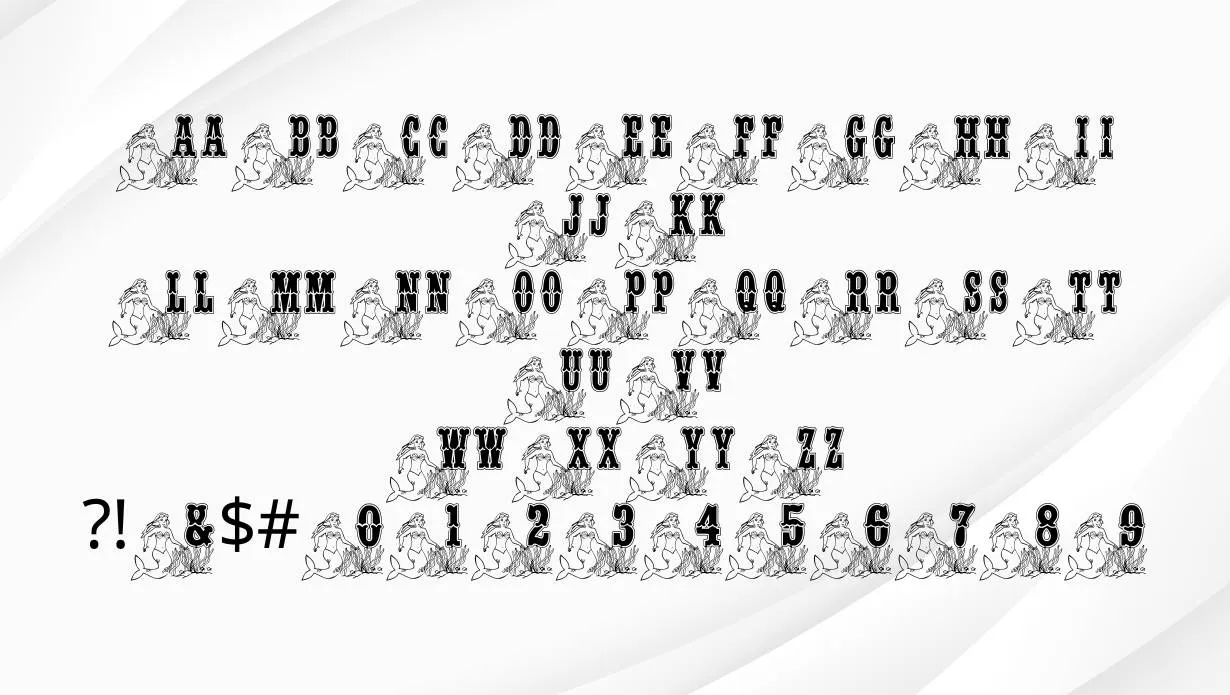
BJF Mermaid font is an artsy and whimsical typeface used in Adobe CSS for creative and imaginative designs, making it a favorite for children’s books, fantasy-themed illustrations, and playful graphics.
| Name | BJF Mermaid Font |
| Designer | Judy |
| Style | Dingbats |